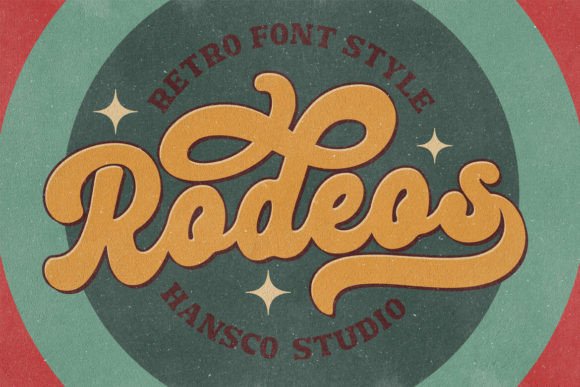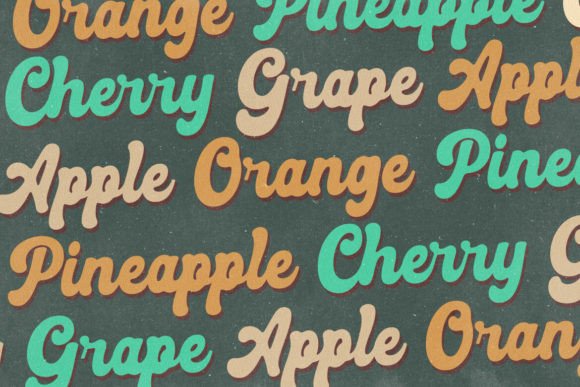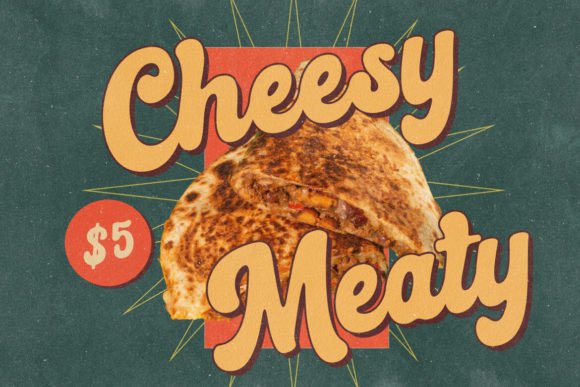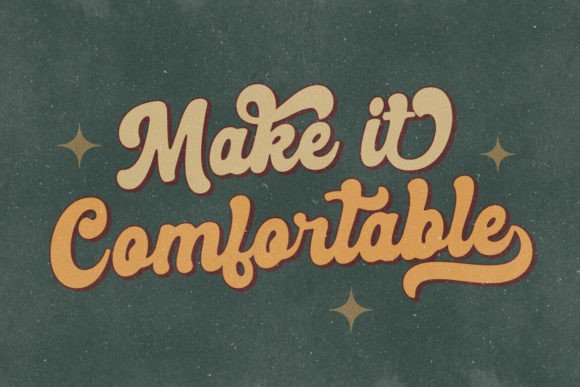
Rodeos Font: A Groovy Retro Display Font for Vintage Designs
About the Rodeos Font
Meet Rodeos Font, a stunning font that brings a touch of elegance and professionalism to any design. Rodeos is a lettering retro vintage font. You will get alternate characters such as swash on some characters. Equipped with all complete characters ranging from uppercase letters, lowercase letters, numbers, punctuation marks and multi-lingual support, this font is ready to be used in any project.
Rodeos’s bold, retro style makes it ideal for headlines, posters, and branding projects needing a vintage feel. It works exceptionally well for short, impactful statements and logos, adding a touch of nostalgic flair. However, its strong character and swash variations make it less suitable for body text or UI elements where readability is paramount; extended use could strain legibility.
Pairing Rodeos effectively requires considering its assertive personality. A clean sans-serif like Montserrat or a neutral serif such as Lora would create a balanced contrast, allowing Rodeos to command attention while maintaining overall clarity. For a more playful approach, a simple script font could add a layer of vintage charm.
Avoid pairing Rodeos with other highly decorative or overly stylized fonts, as this could lead to visual clutter. The key is to let Rodeos’s unique character shine by complementing it with fonts that provide a clear visual counterpoint.
Rodeos Font Usage Examples
Rodeos Font Example